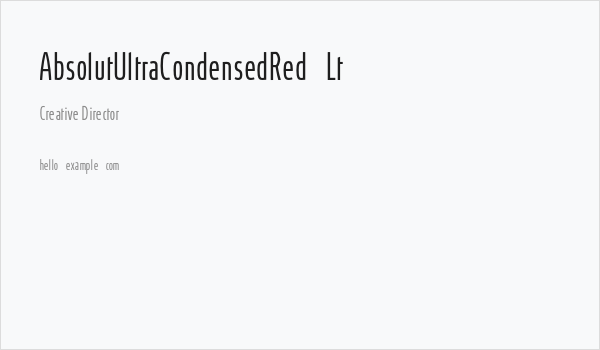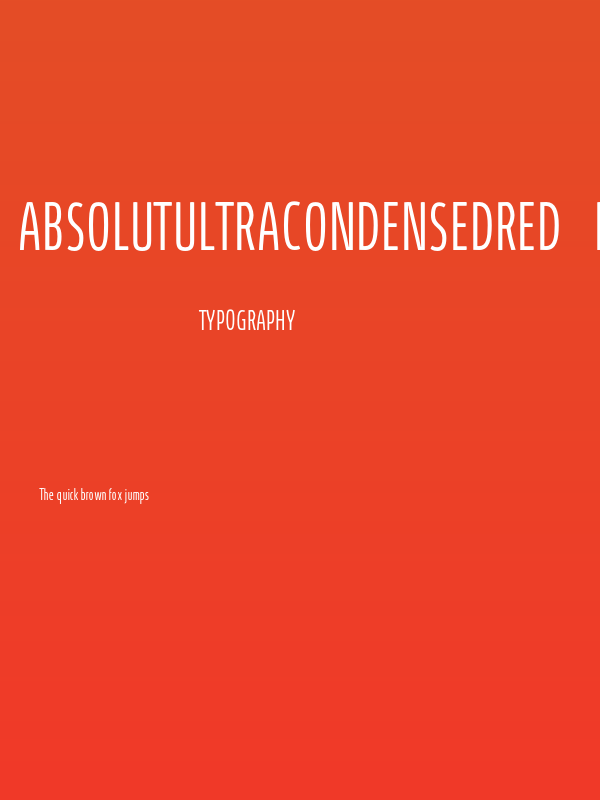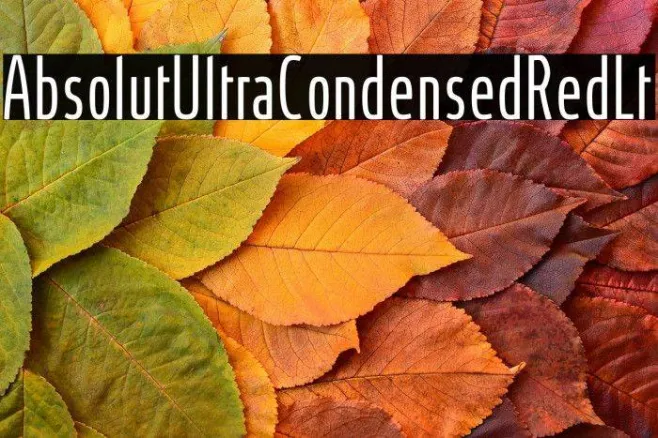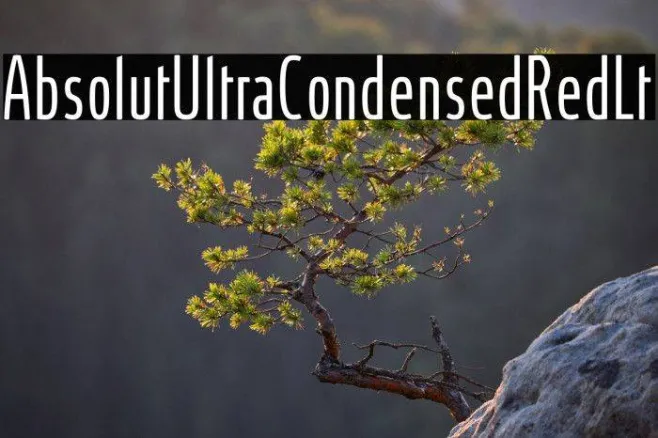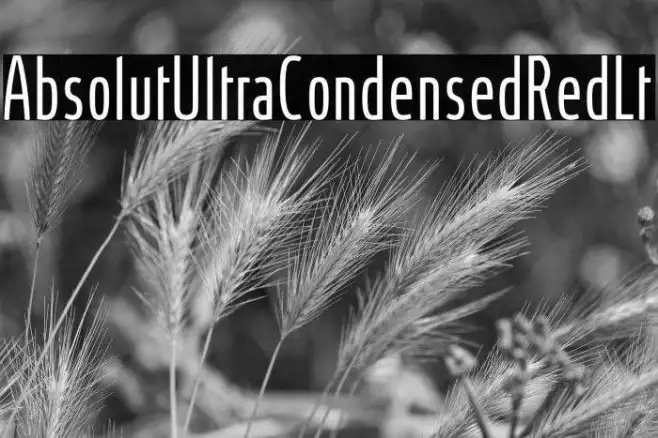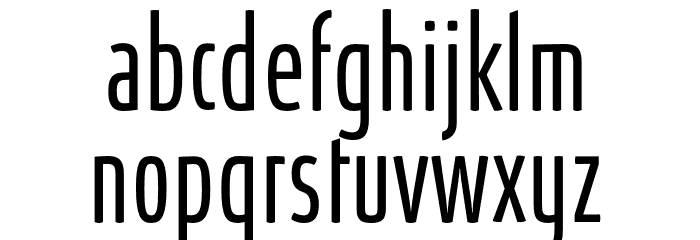
AbsolutUltraCondensedRed-Lt Font
AbsolutUltraCondensedRed-Lt Description
This font features a sleek, ultra-condensed design with a modern and minimalist aesthetic. The characters are tall and narrow, giving it a distinctive look that is both elegant and efficient in space usage. The uniform stroke width across all characters provides a clean and consistent appearance, making it suitable for contemporary design projects. The uppercase and lowercase letters maintain a harmonious balance, while the numerals and special characters are crafted to match the overall style seamlessly. This font's simplicity and clarity make it versatile for various applications.
| Use Case | Headlines, Logos, Digital interfaces |
| Proposed Projects | Ideal for branding, editorial design, posters, and digital interfaces where space is limited. |